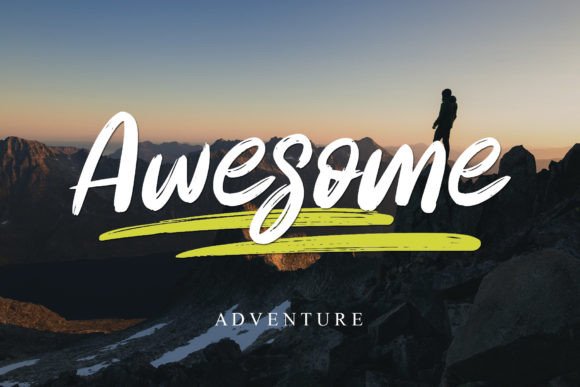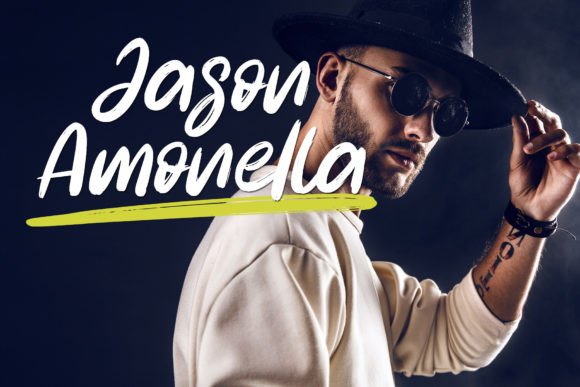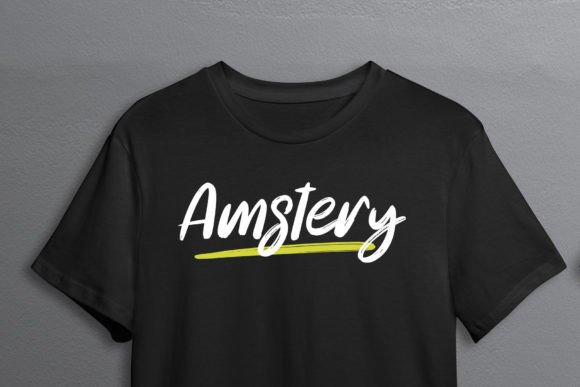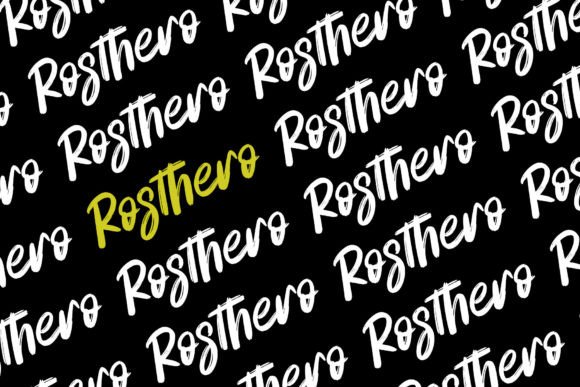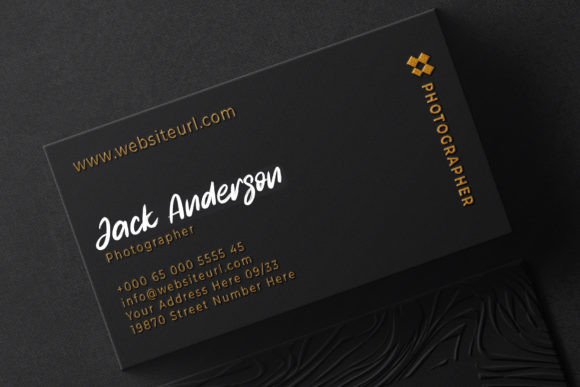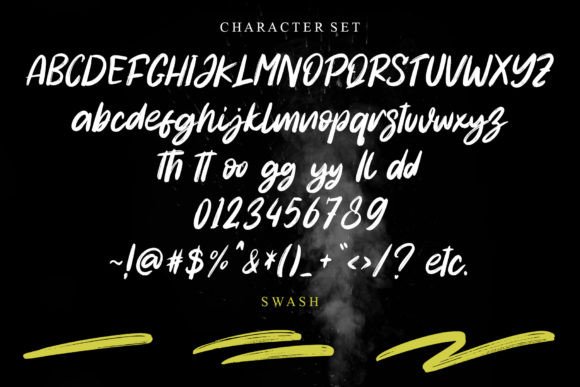
Introduction to Rosthero Font
Rosthero is a natural display font.
It is a tough-looking font with a strong brush touch, ready to rock every design you want to create It is perfect for logos, quotes, posters, clothing, and so much more.
Key Features of Rosthero Font